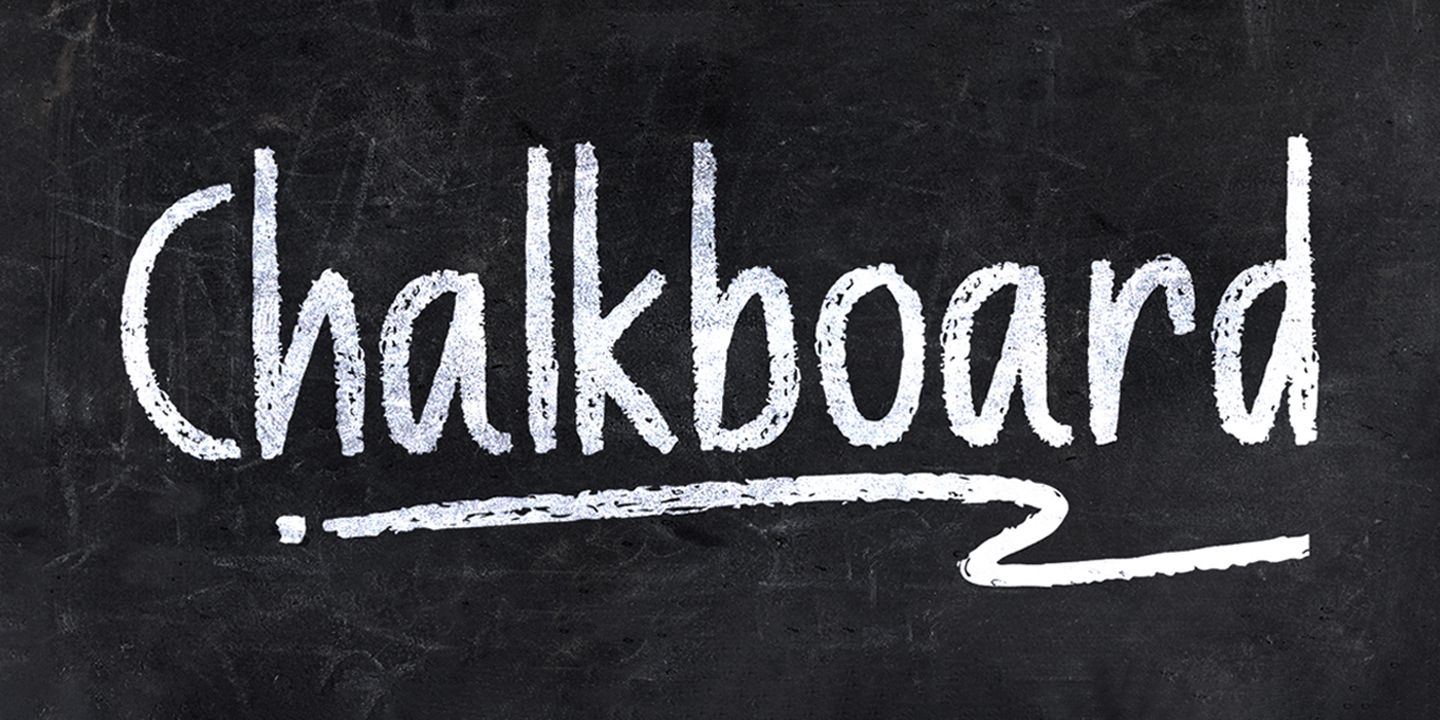
The Chalk Board Font excels in various design applications including casual restaurant menus, coffee shop signage, educational materials, children's book illustrations, craft project designs, vintage-style posters, chalkboard-themed websites, classroom decorations, casual branding projects, and nostalgic marketing campaigns that require authentic handwritten character and informal charm.
What makes the Chalk Board Font exciting is its authentic recreation of genuine chalk-on-blackboard aesthetics with all the natural imperfections and organic textures that make handwritten chalk lettering so appealing. This typeface captures the spontaneous, friendly nature of classroom writing while maintaining excellent legibility and professional polish. The font's casual personality and approachable character make it perfect for brands seeking to establish warm, personal connections with their audience through relatable, down-to-earth visual communication.
The Chalk Board Font family typically includes regular and bold weights, often featuring distressed variations that enhance the authentic chalk texture effect. These family options may include alternate characters, ligatures, and decorative elements that replicate the natural variations found in real chalk writing, providing designers with comprehensive tools for creating convincing chalkboard-style typography.
Design professionals frequently choose Chalk Board Font Free Download for projects requiring casual, approachable aesthetics that don't sacrifice readability or professional quality. This typeface performs exceptionally well in educational contexts, hospitality branding, and casual retail environments where creating a welcoming, informal atmosphere is essential. The font's versatile nature makes it suitable for both large display applications and smaller text elements. Download Chalk Board Font Free Download today to bring authentic chalkboard charm to your design projects, creating engaging visual experiences that connect with audiences through familiar, comforting typography that evokes positive memories.